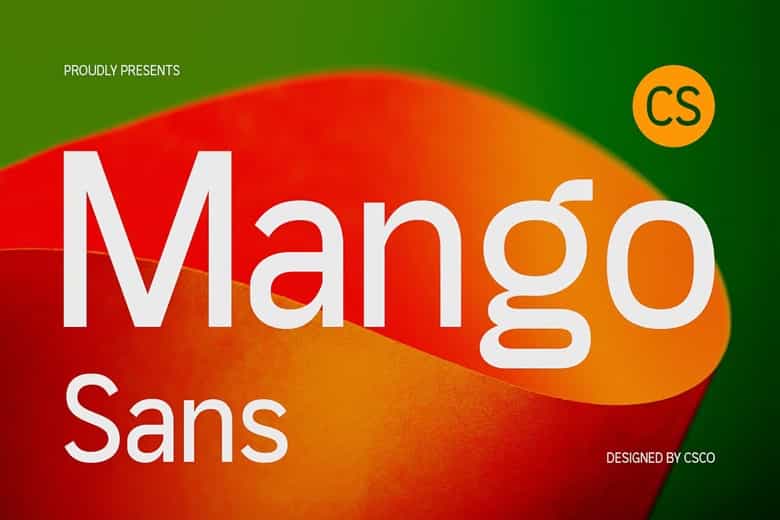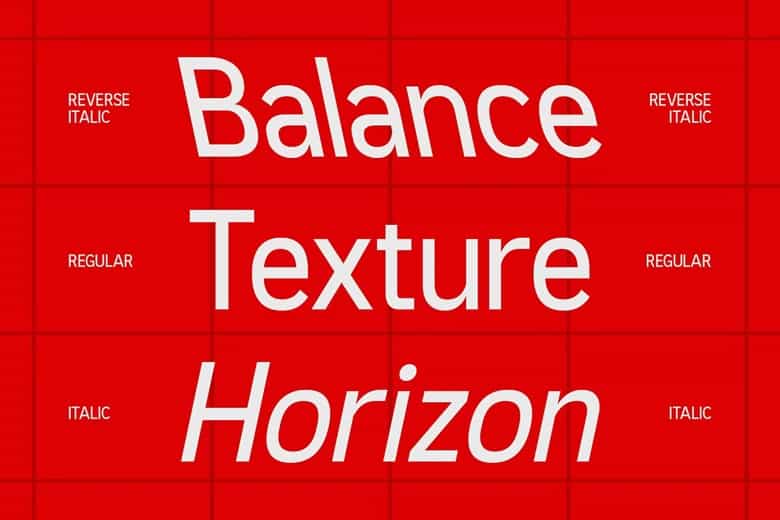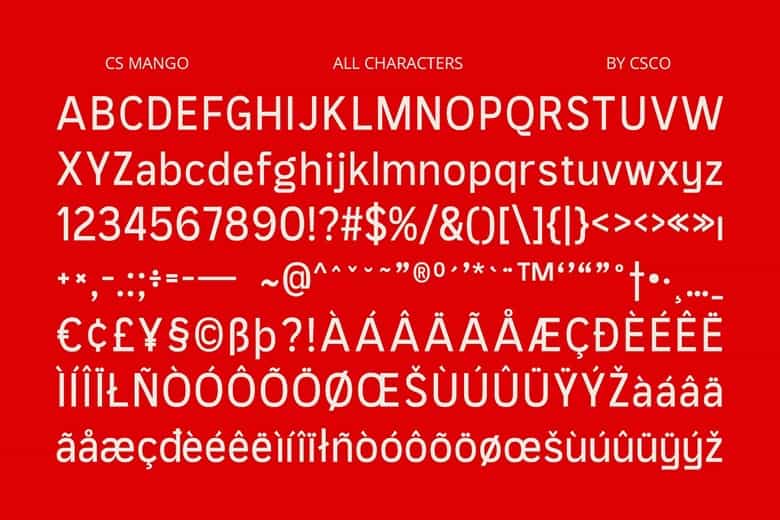
CS Mango is a new sans-serif typeface with elements from both grotesk and geometric style, free of ornaments, with clean and strong, and at the same time, an adjustable character. Functionally, it was intended for professional type and, at the same time, to provide expressive outline, which in its simplicity is distinctive, for creative use in various forms of design.